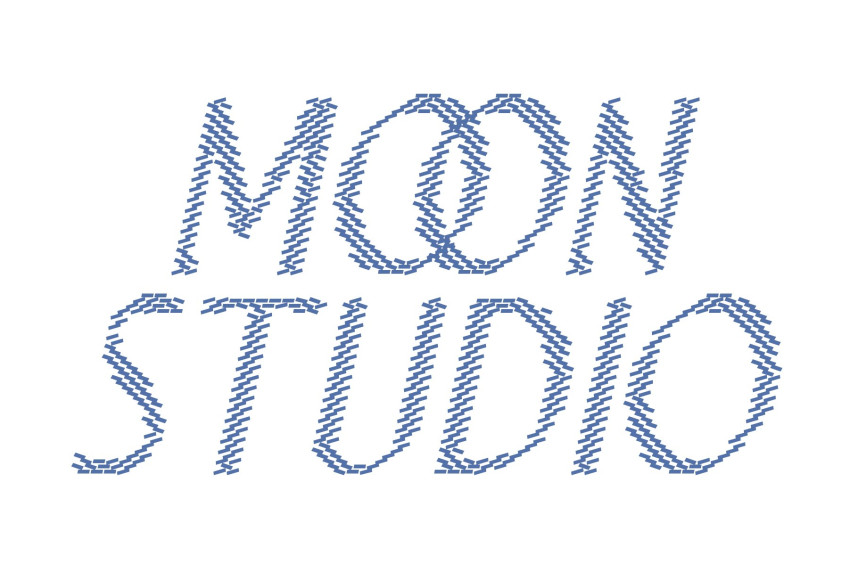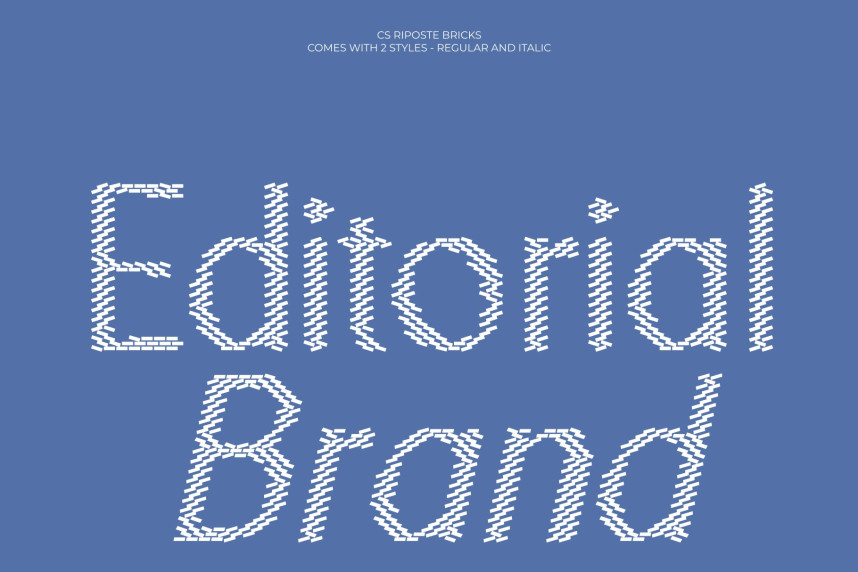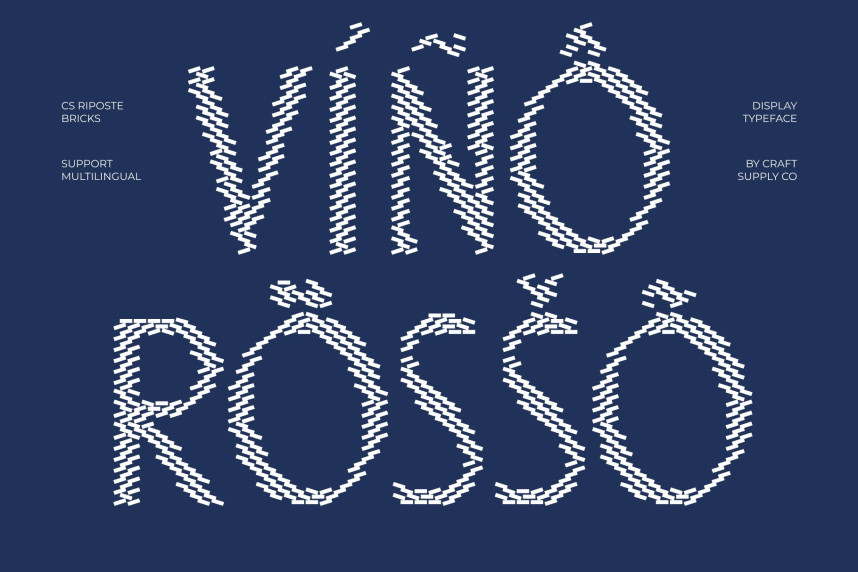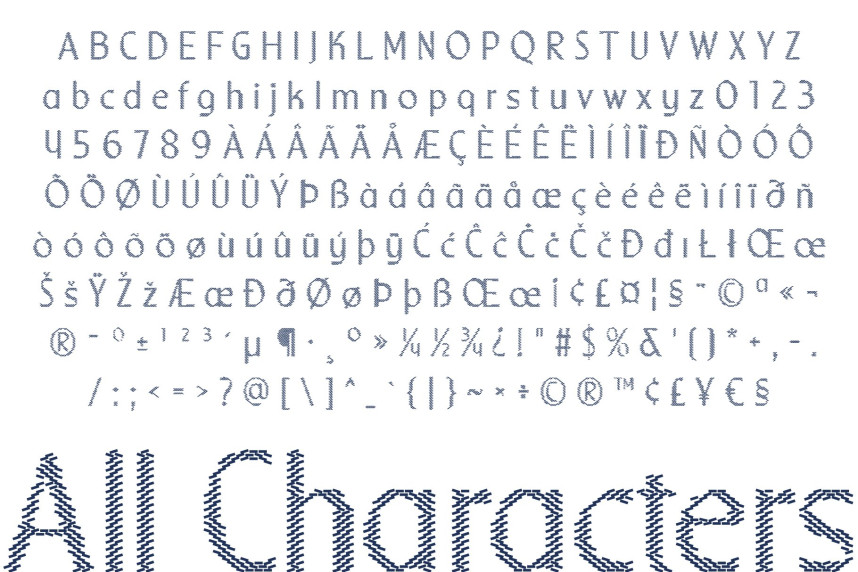
CS Riposte Bricks Font
CS Riposte Bricks Font – Modern Sans Serif Display Font: Where Contemporary Style Meets Decorative Brick Texture
Clean Modern Forms with Stylish Confidence
This is a modern sans serif display font designed to feel contemporary, aesthetic, and effortlessly stylish. Its clean structure and balanced proportions create a refined visual identity that communicates clarity, confidence, and professionalism. Built for impactful display use, the font combines modern simplicity with a strong presence, making it suitable for a wide variety of creative applications.